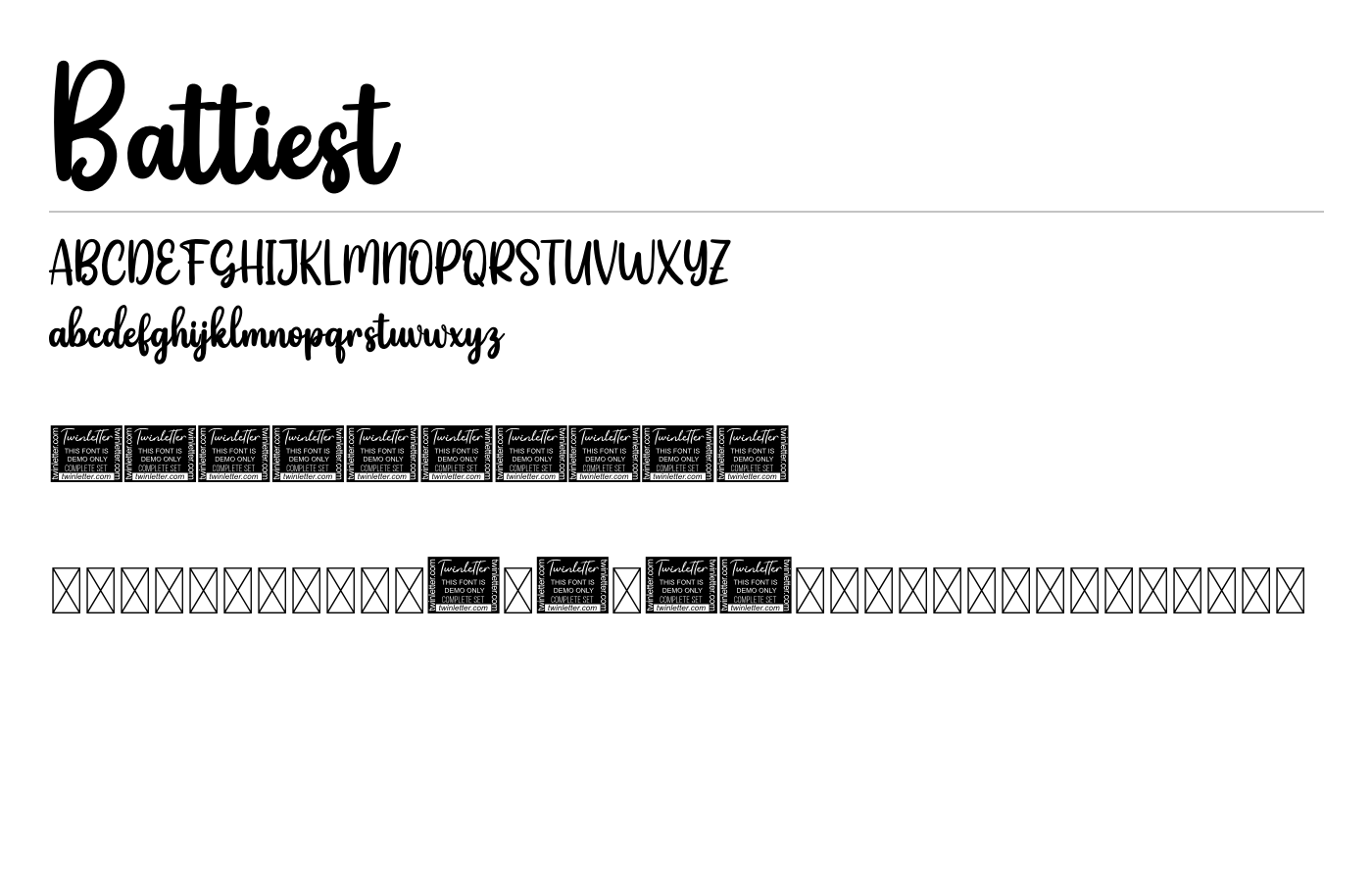
Battiest is a lively and casual script font with a hand-drawn feel, characterized by its bold weight and smooth, rounded letterforms. It combines playful uppercase with a flowing lowercase style, making it perfect for projects that want to convey friendliness and creativity, such as branding, invitations, and social media graphics. Its dynamic personality and clear readability lend it well to eye-catching headlines and fun, informal designs.
Battiest Font
About Battiest Font